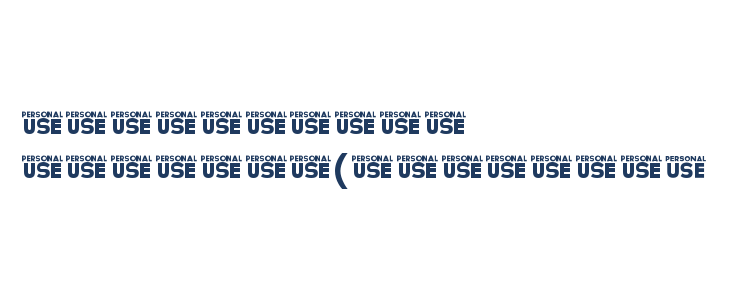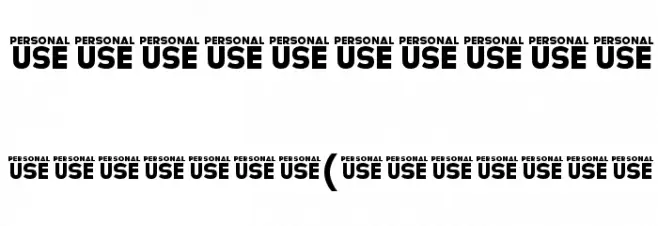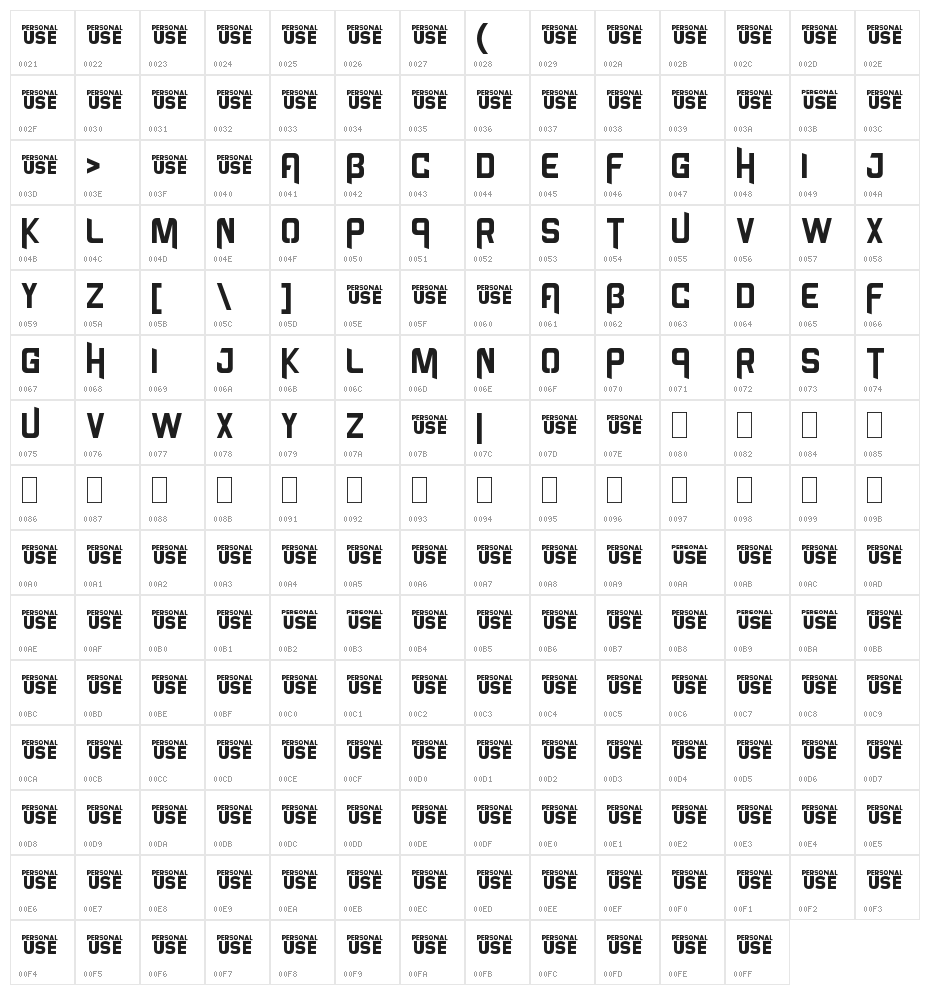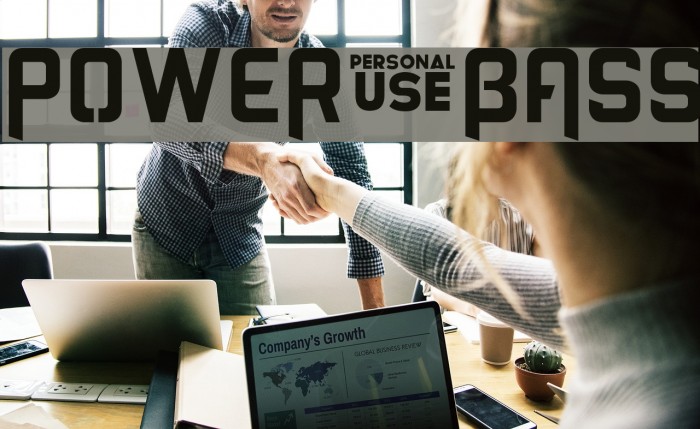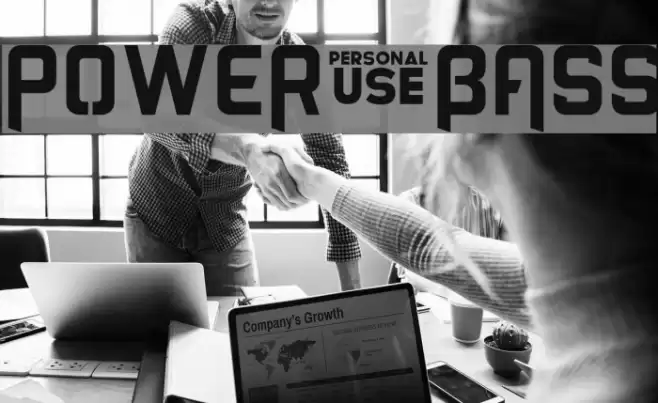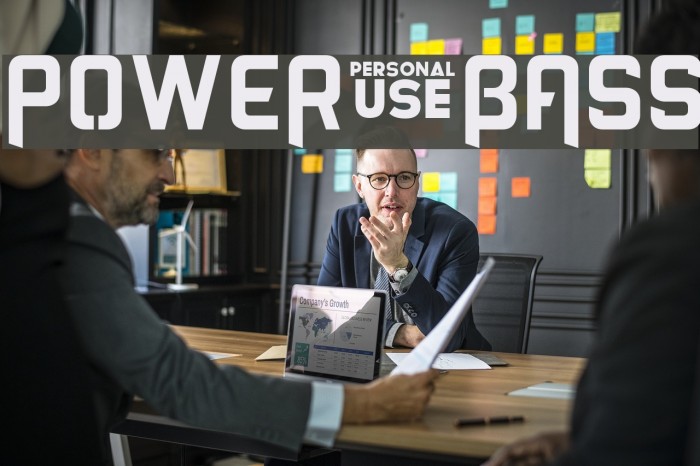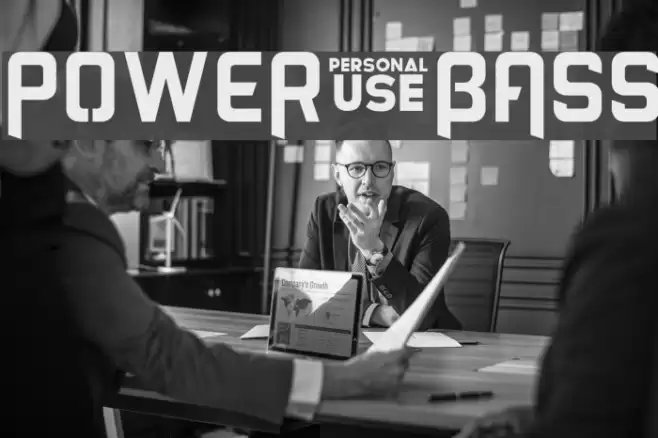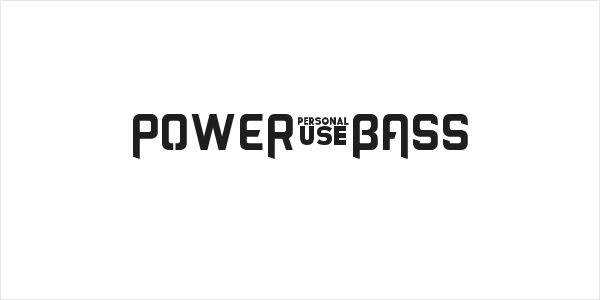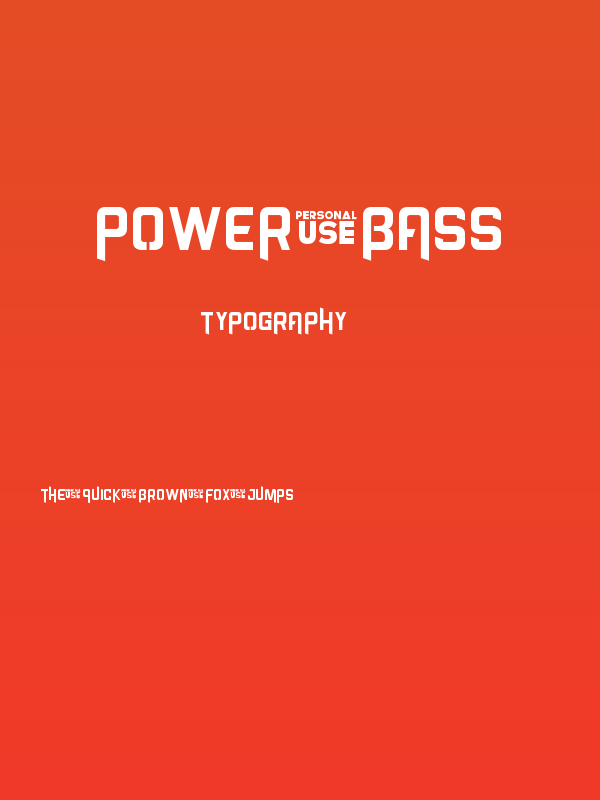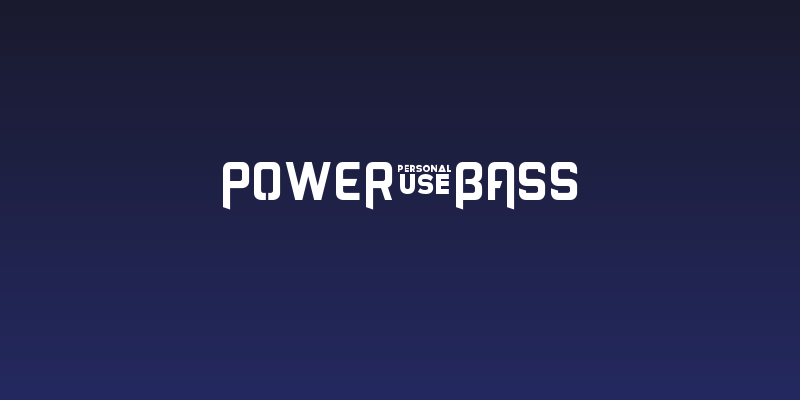
Power Bass Font
Power Bass Description
This font features a bold and impactful design with a modern, geometric aesthetic. The characters are constructed with thick, uniform strokes that create a strong visual presence. The angular edges and straight lines give it a futuristic and industrial feel, making it ideal for projects that require a contemporary and assertive look. The uppercase letters are particularly striking, with a consistent height and width that enhance readability. The font's design is clean and uncluttered, allowing it to stand out in various applications. Its unique style is suitable for attention-grabbing headlines and branding materials.
| Proposed Projects | Ideal for branding, advertising, posters, and headlines that require a strong visual impact. |